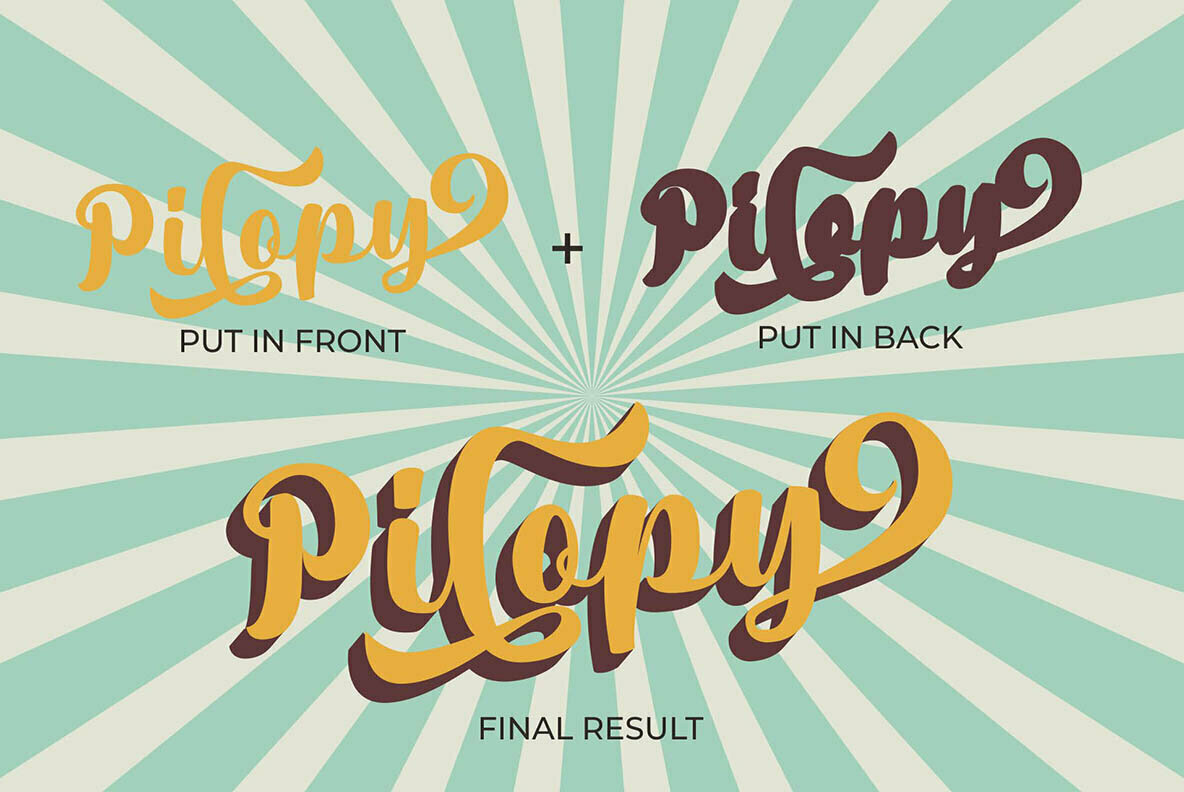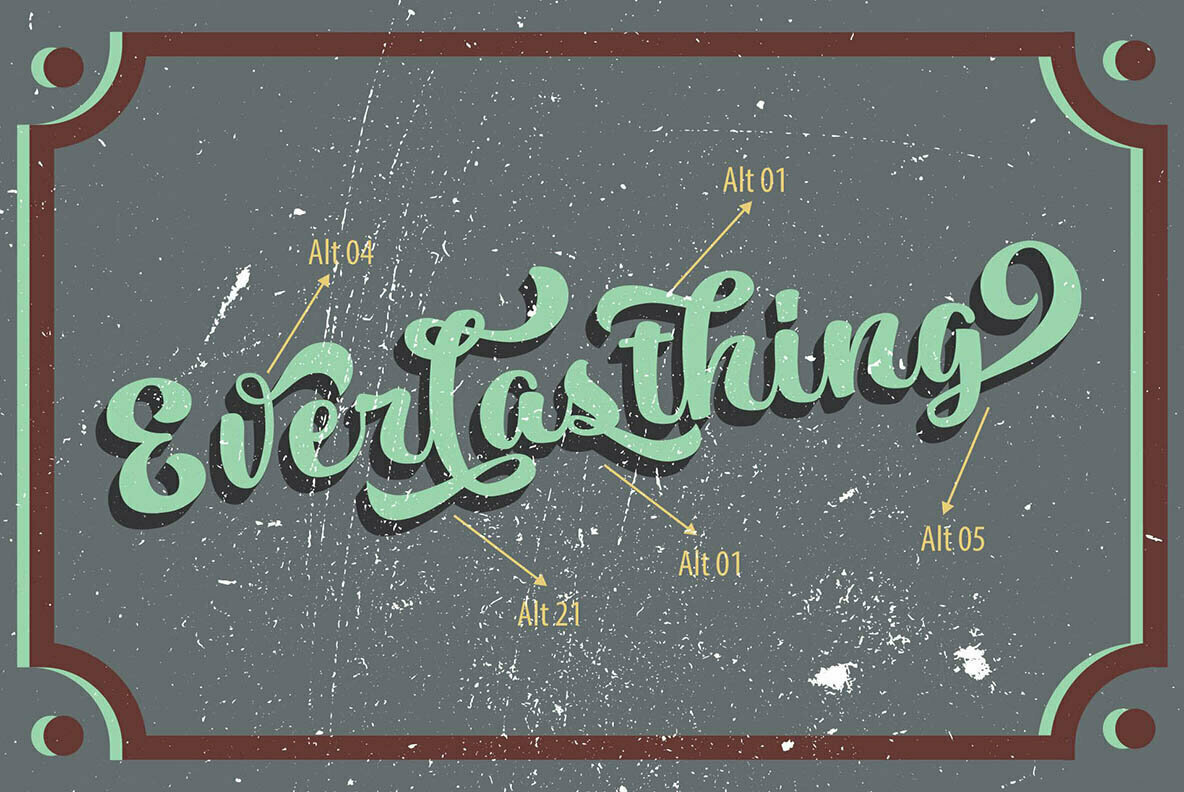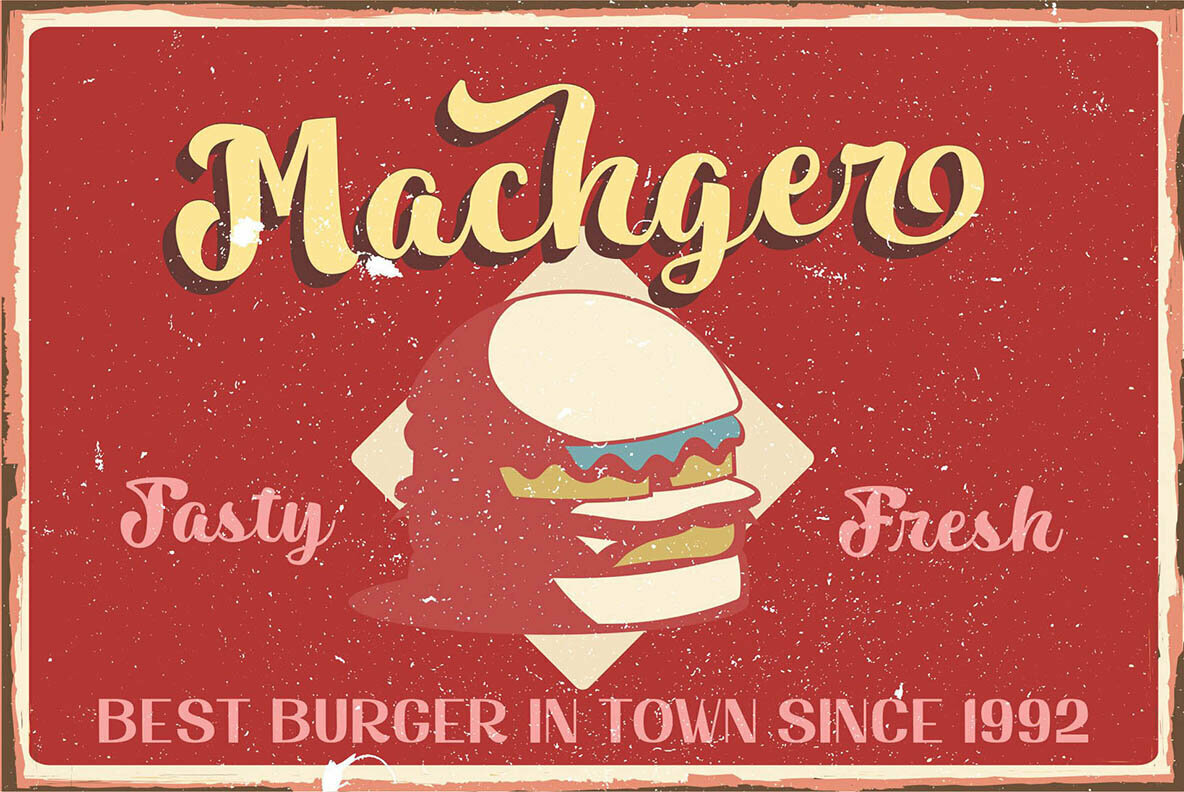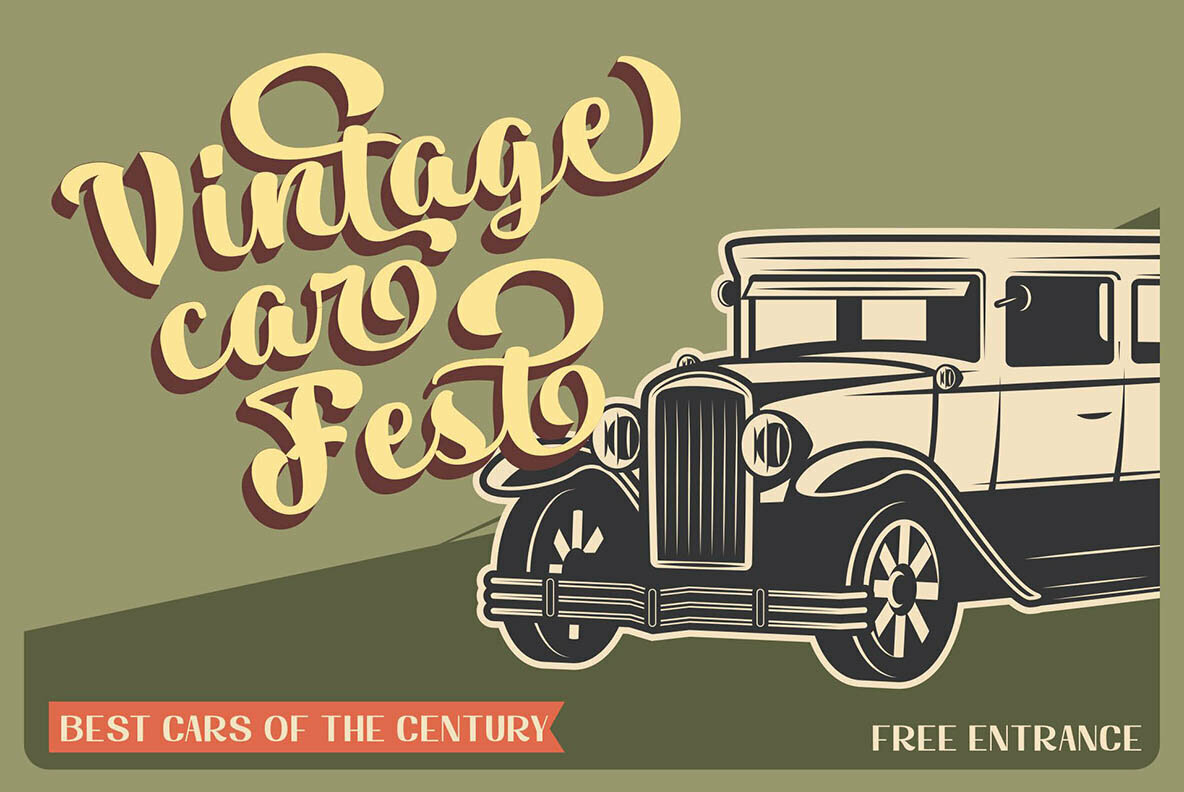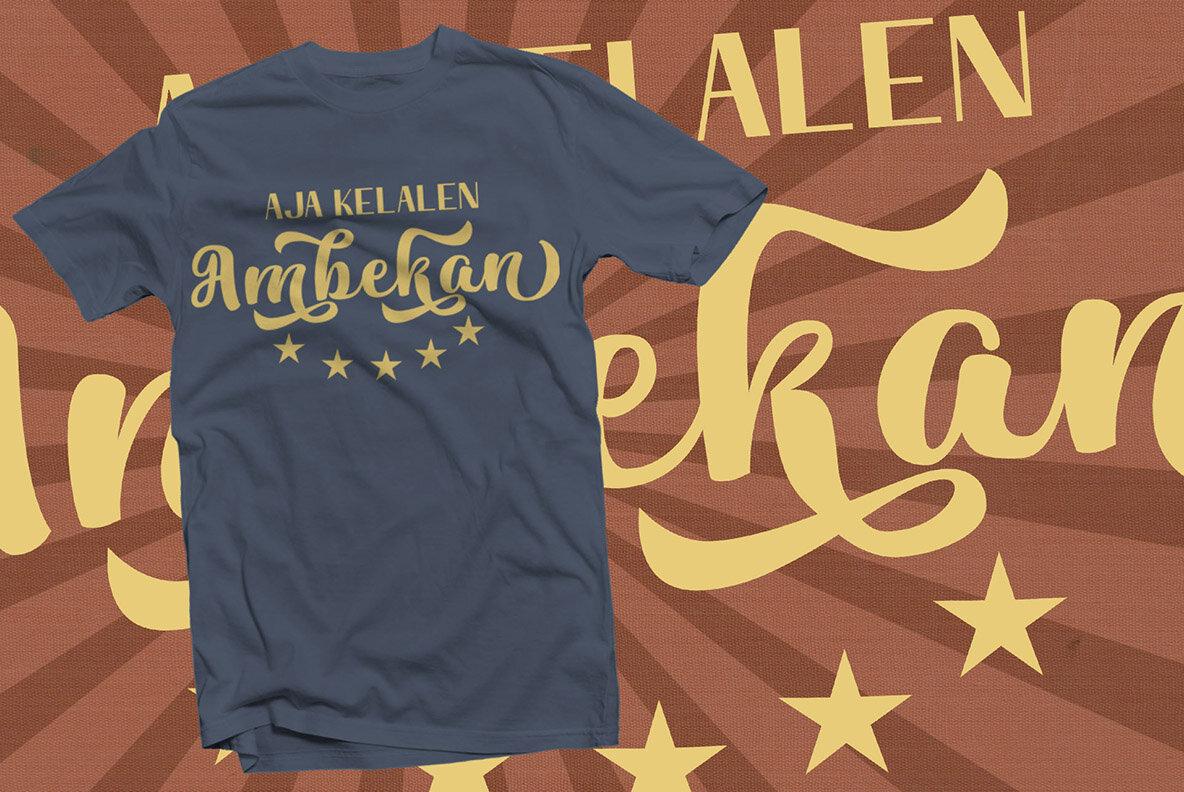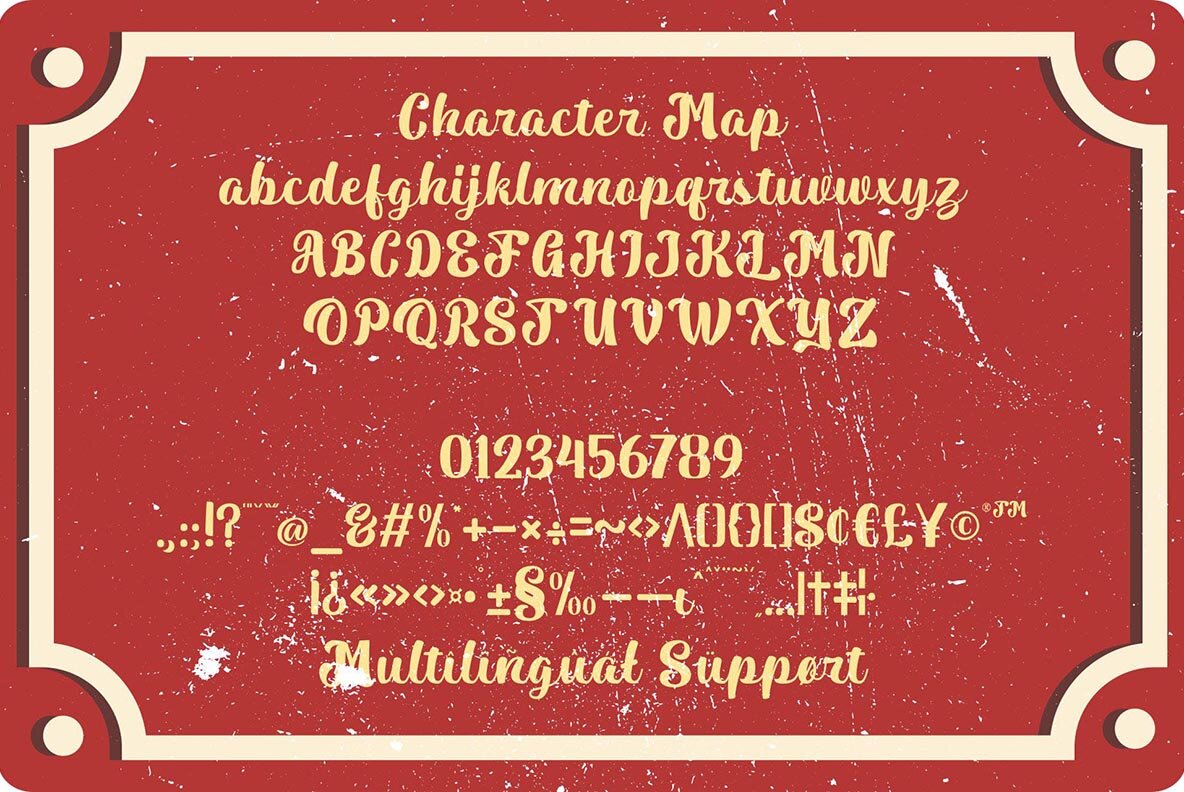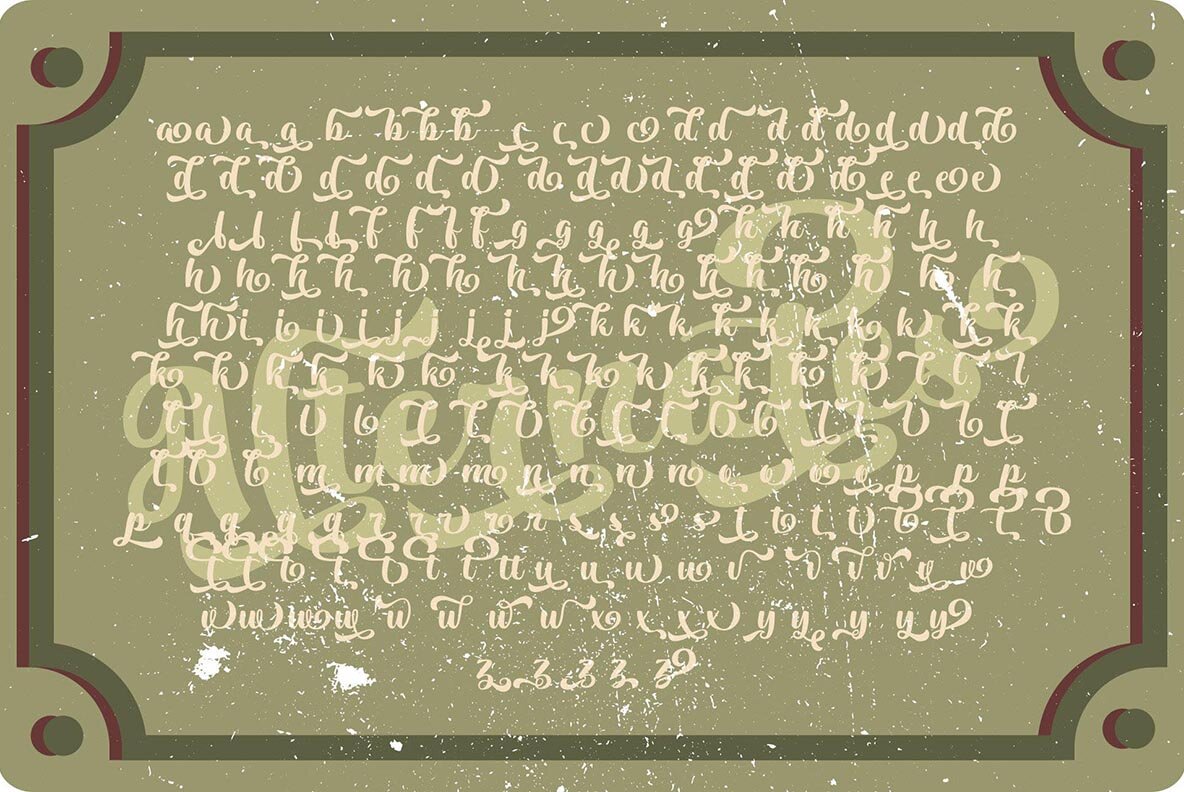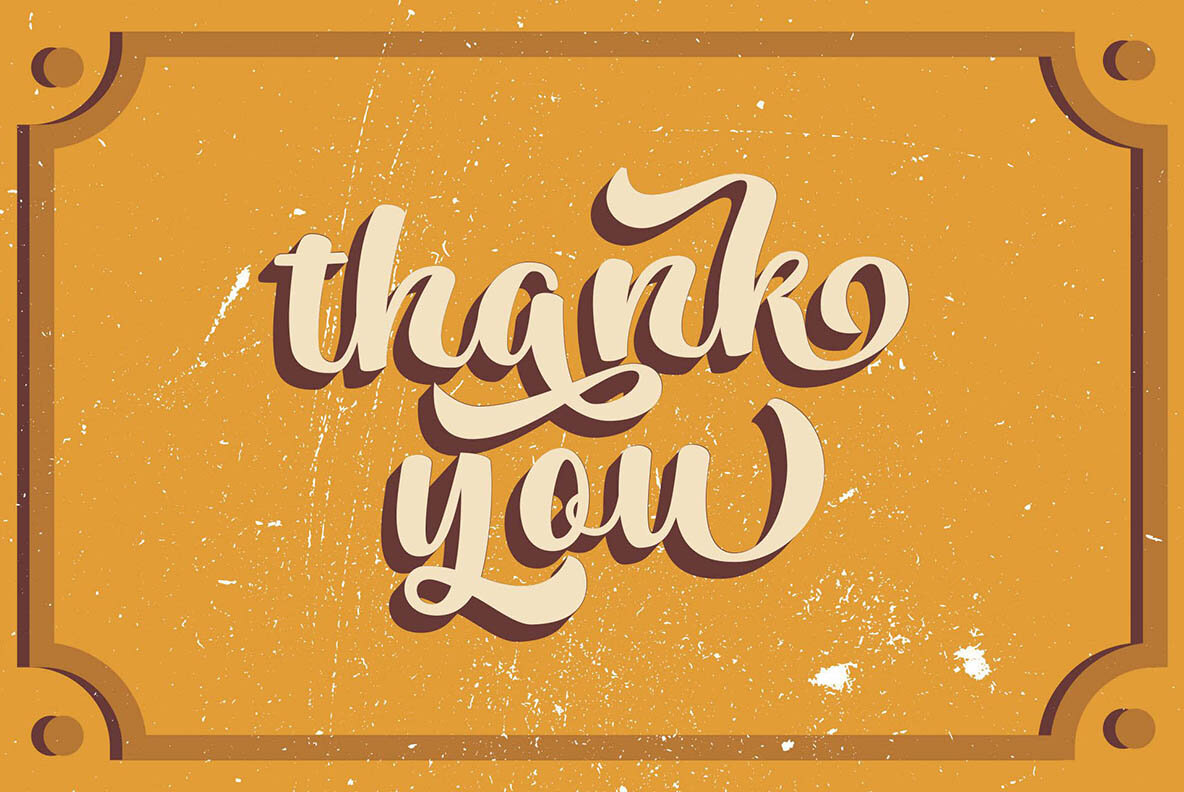
Pilopy Font
Relish in the nostalgia of the 60s and 80s with Pilopy, a bold script font that draws inspiration from the classic lettering of that era. This font stands out for its ease of use with an additional extruded font version included, saving you the effort of creating an extrude effect manually. Whether for branding or crafting logos, labels, and headlines, Pilopy offers a dynamic touch to diverse design projects.Pilopy: Bold Script Inspired by Retro Lettering